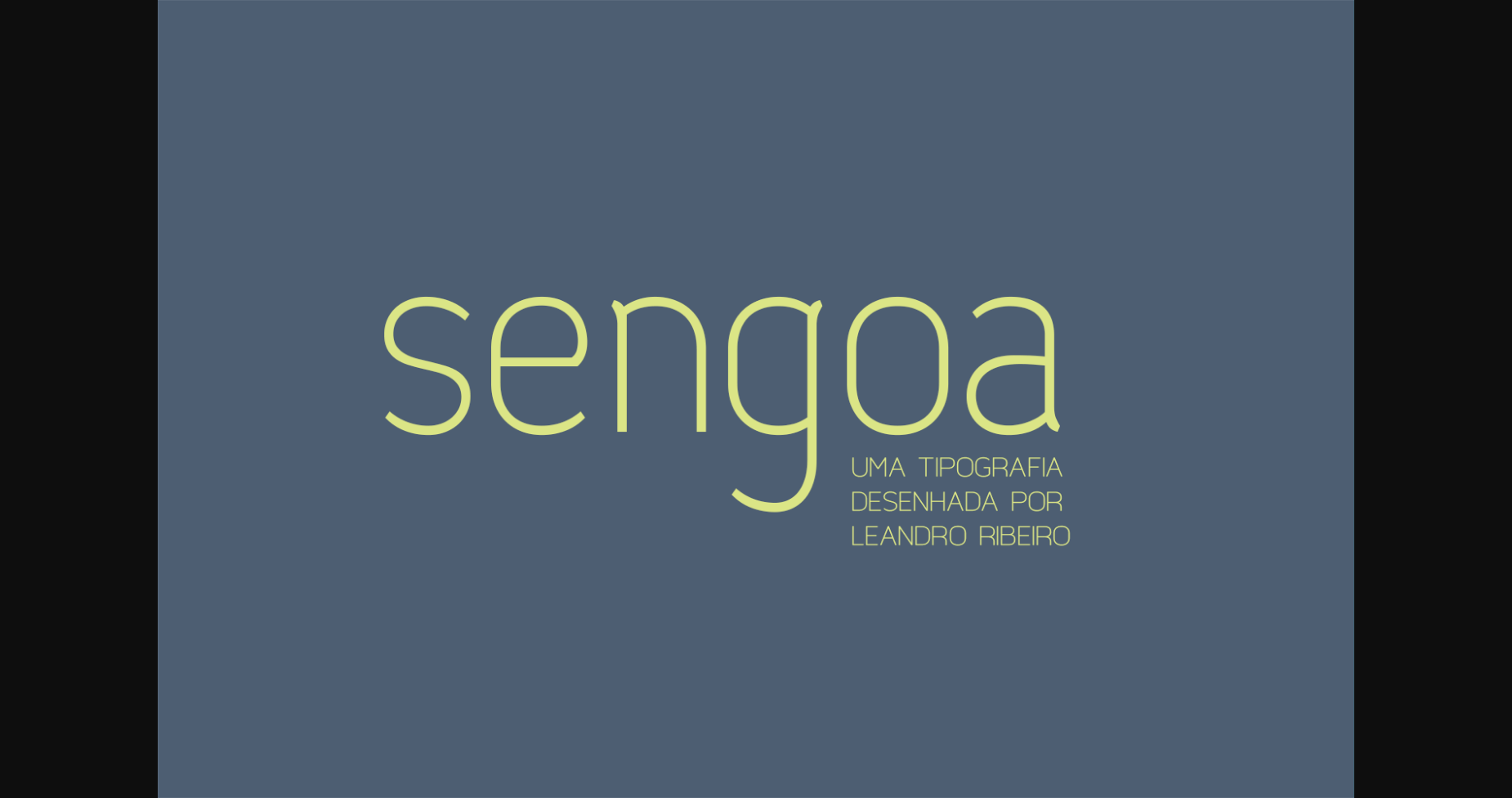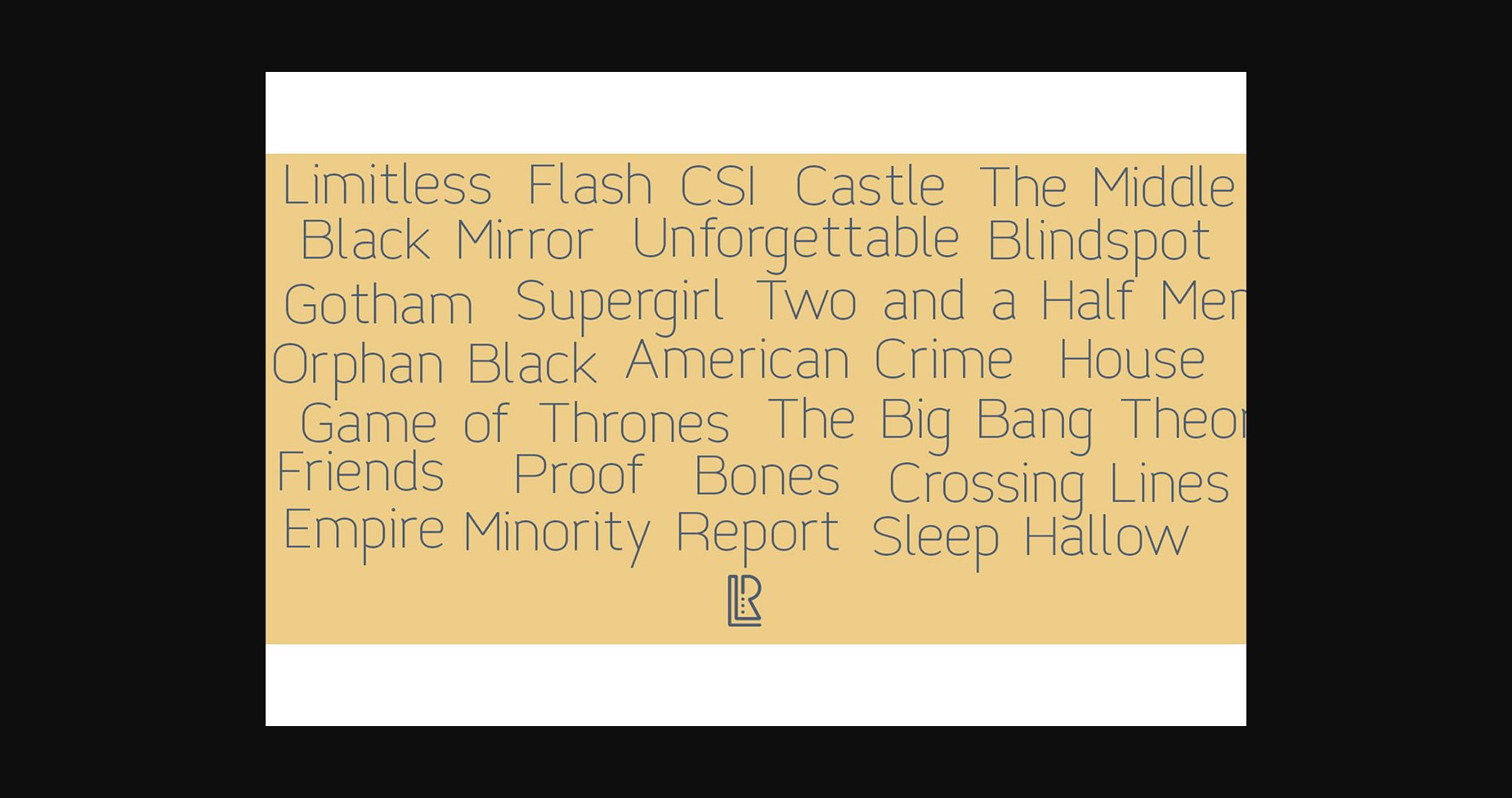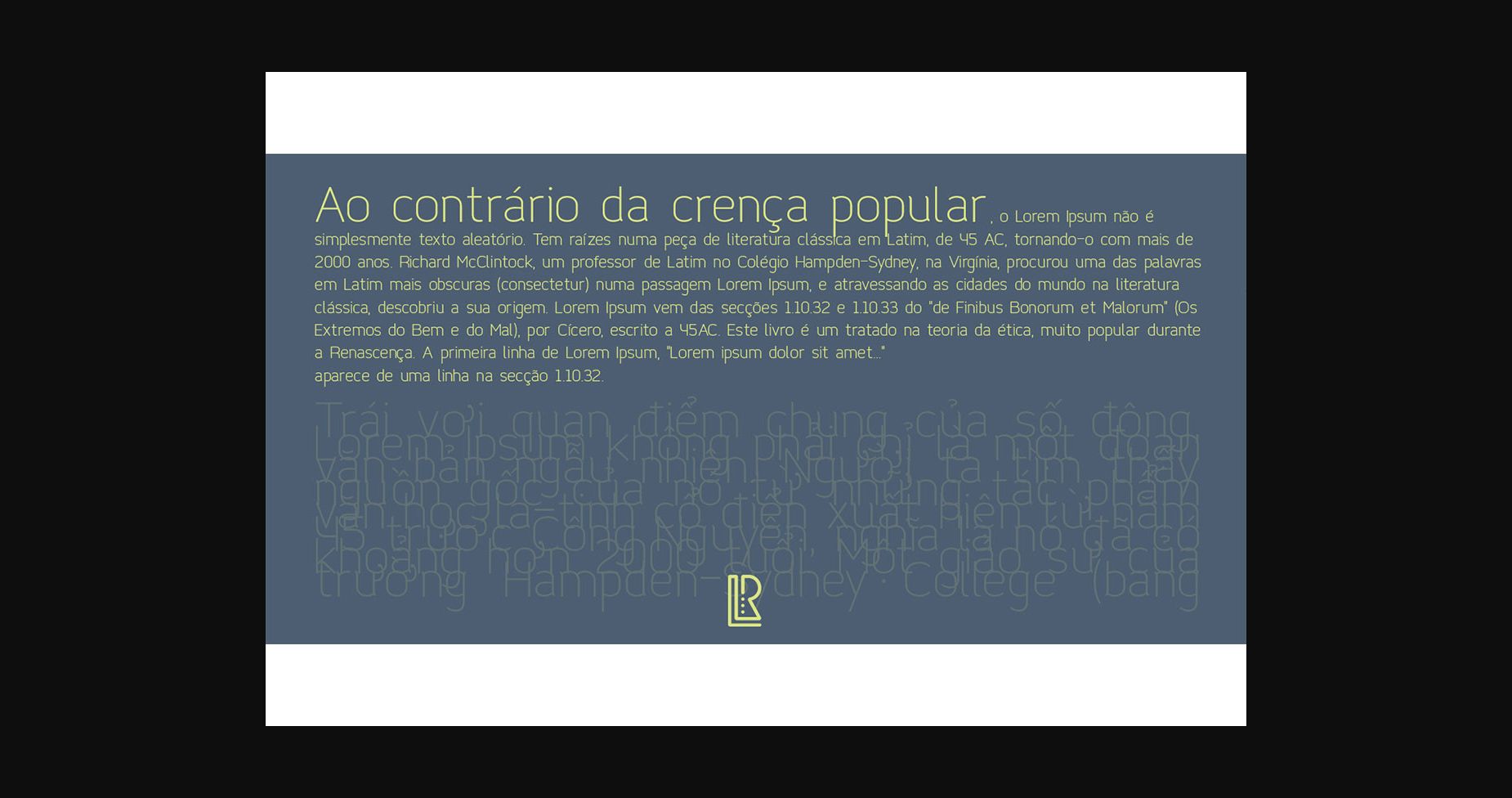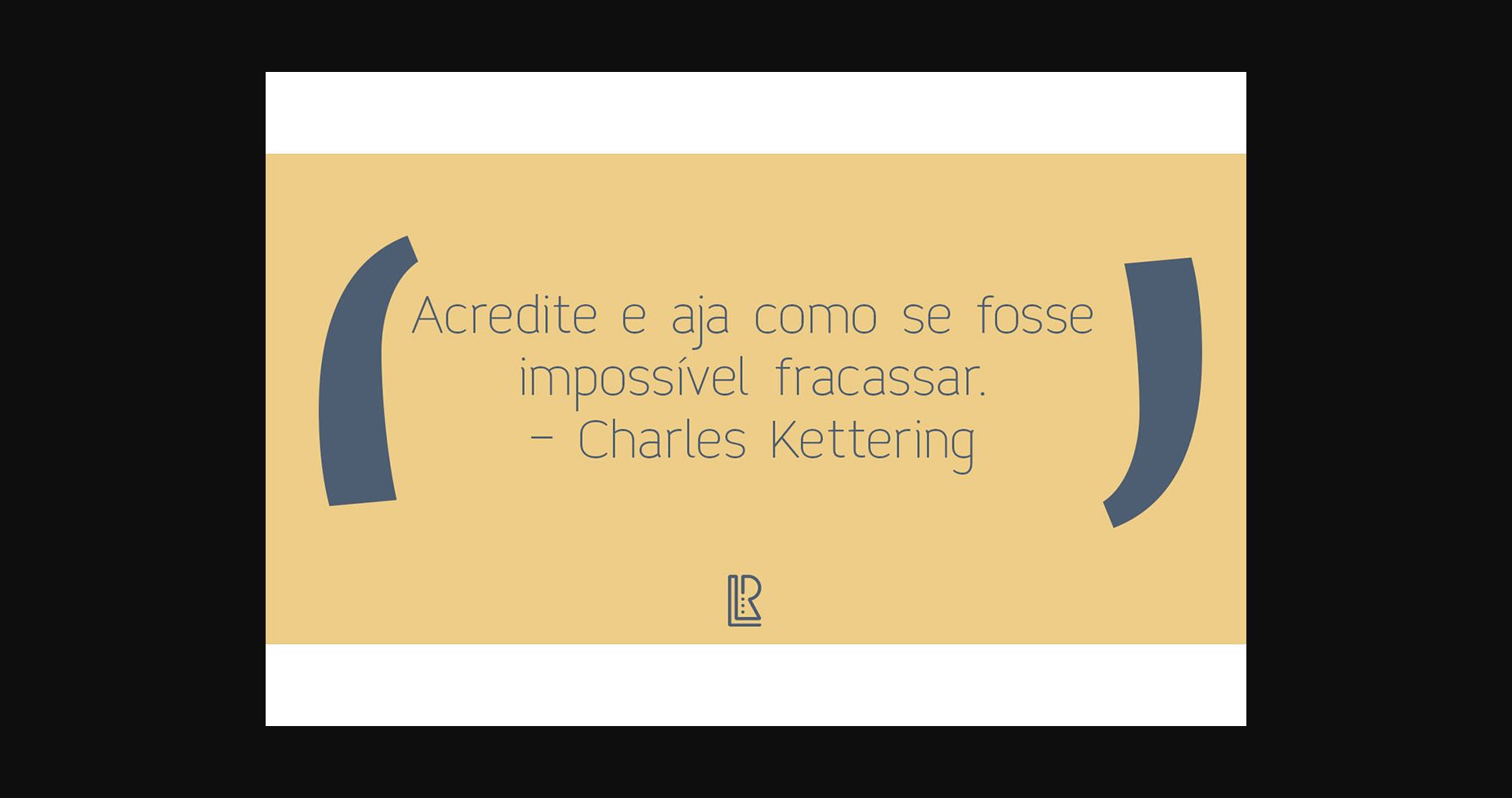
HomeSans Serif FontsSengoa Font Sans Serif Fonts Sengoa Font FacebookXPinterestWhatsApp 1 of 6 ... Sengoa Font Poster 2... Sengoa Font Poster 3... Sengoa Font Poster 4... Sengoa Font Poster 5... Sengoa Font Poster 6... About Sengoa Font Sengoa is a cool and adaptable sans serif font. It is suitable for book texts, documentation, business reports, business correspondence, magazines, newspapers, posters, advertisements, multimedia, and corporate design. DOWNLOAD NOW People also explored Golden Girls Font Nathalie Font Clattering Font Youthful Font Skye Bennetta Font Heather Peach Styled Unisex T-Shirt Mockup Photo Butterlove Font Gabie Font Fresh Cream Font 354 0 TagsSengoaSengoa Font Previous articleUmunu FontNext articleVelinse Font LEAVE A REPLY Cancel reply Comment: Please enter your comment! Name:* Please enter your name here Email:* You have entered an incorrect email address! Please enter your email address here Website: Save my name, email, and website in this browser for the next time I comment. Personal Use Free Rozalyn Personal Use Free Read more about this font Rolling Door Personal Use Free Read more about this font Bally Girl Personal Use Free Read more about this font Zojihun Personal Use Free Read more about this font BLOG Using Fonts in Digital Marketing: Tips to Strengthen Your Brand Identity In the realm of digital marketing, every visual element plays a crucial role in shaping a brand's identity, and fonts are no exception. The... To increase your work productivity, choose the most readable fonts. Modern Sans-Serif Fonts That Brands Love in 2025 Elegant Wedding Invitation Fonts – Handwritten & Script Fonts